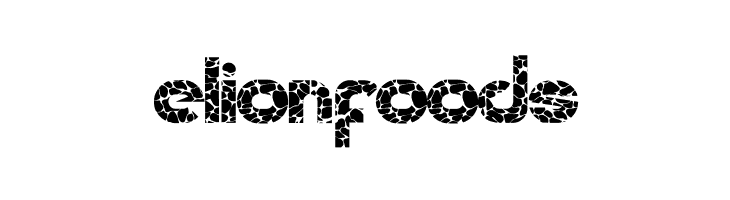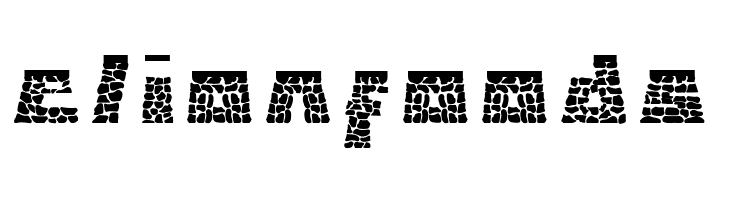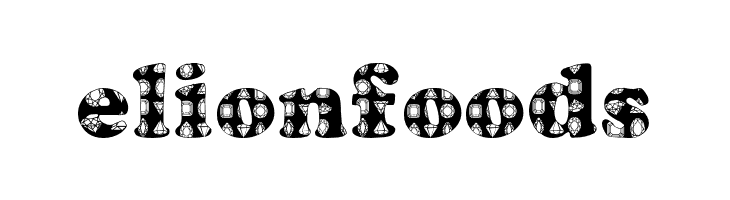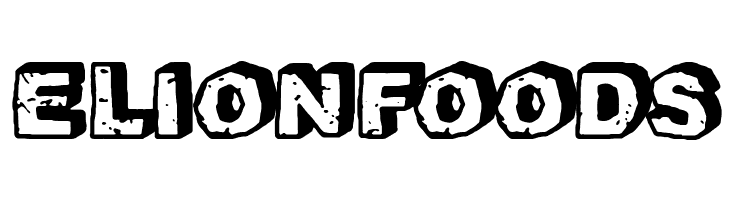
( Character )
A decorative font with intricate floral and vine motifs, reminiscent of ancient stone carvings.
( Digital Magic - www.graphicdesignplus.com/helen/digitalmagic/ )
Ornamental font with gemstone and jewelry-inspired symbols.
( Fonts by Xerographer Fonts )
A playful, blocky font with a geometric, stone-like design.
( Fonts by Cumberland Fontworks )
Stone-patterned decorative font with mosaic-like characters.
( Fonts by Indra Gunawan )
A textured, stone-like font with a bold, geometric style.
( Fonts by Martin Steiner )
A bold, decorative font with characters formed by stone-like shapes.
( Fonts by Devsign )
A decorative font with characters resembling a mosaic or cobblestone pattern.
( Fonts by Andrea Steffen )
A bold, decorative font with a gemstone pattern, perfect for elegant and creative designs.
A bold, rugged font with a distressed, stone-like texture.
A spooky, mummy-themed font with textured uppercase and tombstone-encased lowercase letters.